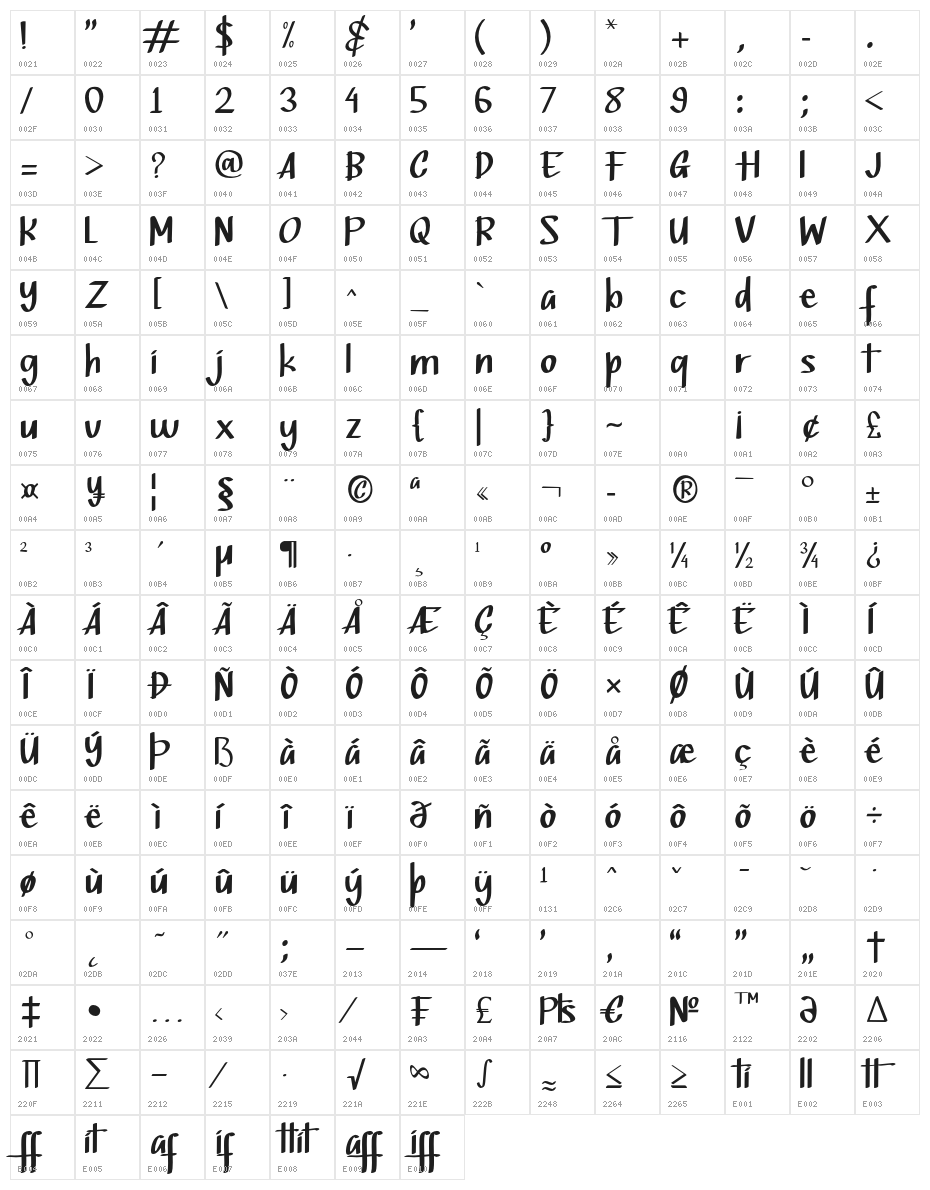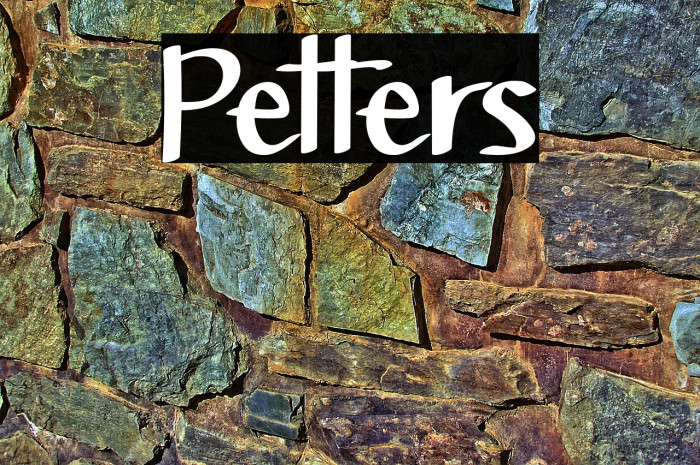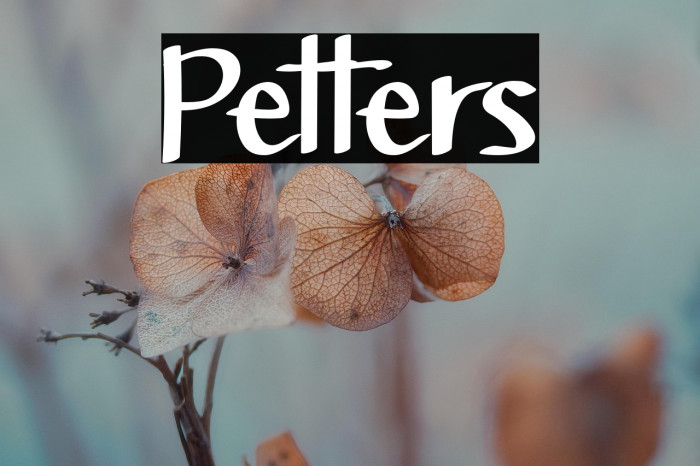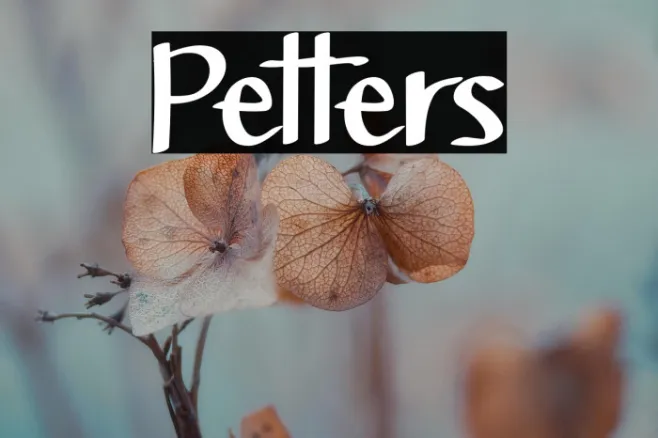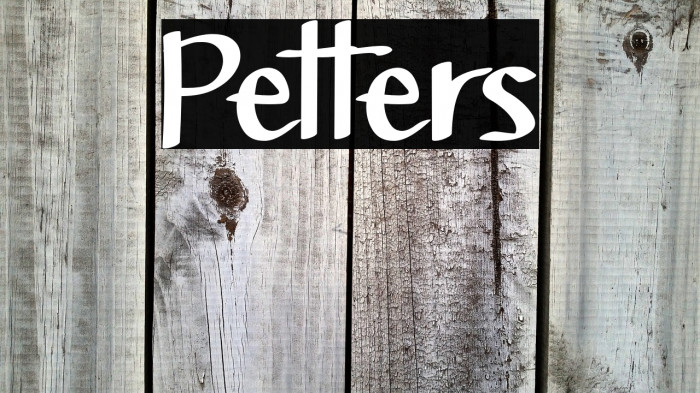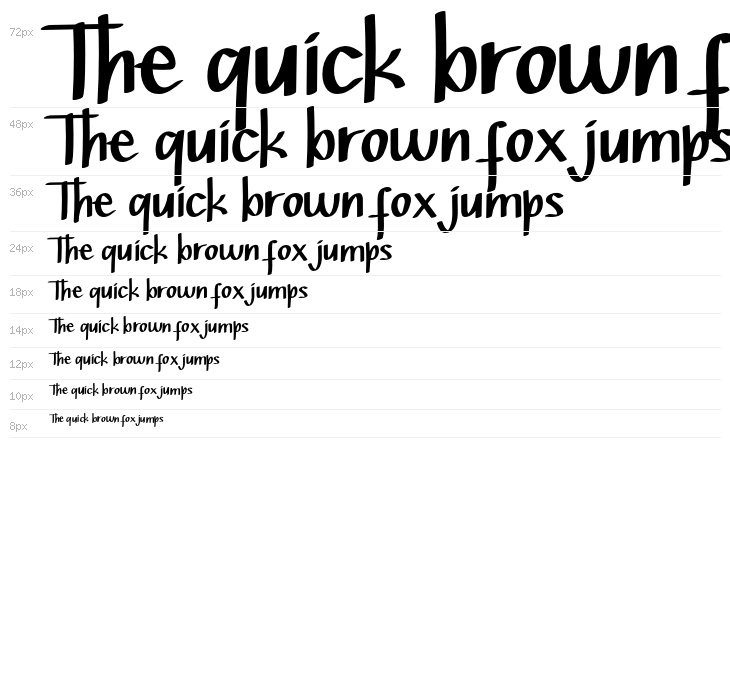
Petters Font
Petters Description
This font features a bold and expressive handwritten style, characterized by its fluid and dynamic strokes. The uppercase letters are tall and slightly slanted, giving a sense of movement and energy. The lowercase letters maintain a consistent flow, with rounded edges and a playful appearance. Numbers are clear and legible, matching the overall aesthetic of the font. Special characters are creatively designed, maintaining the font's unique style. The font's overall look is casual yet impactful, making it suitable for a variety of creative projects.